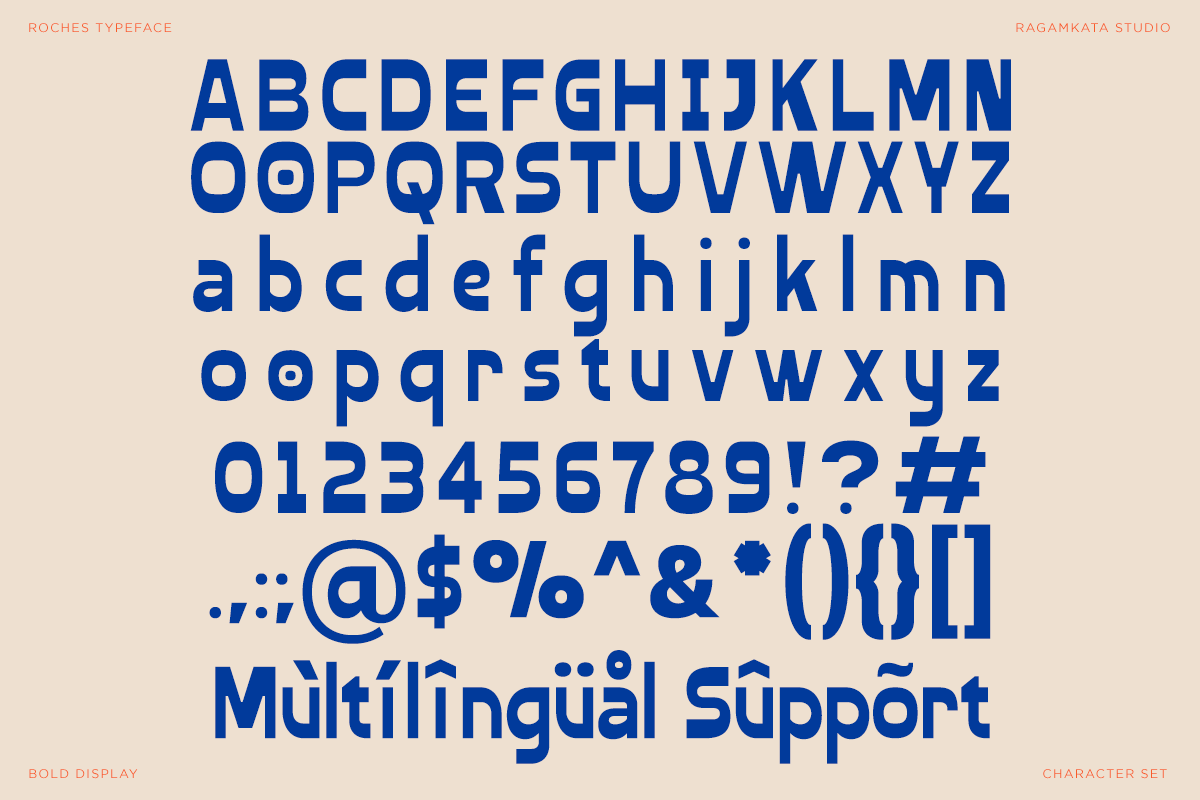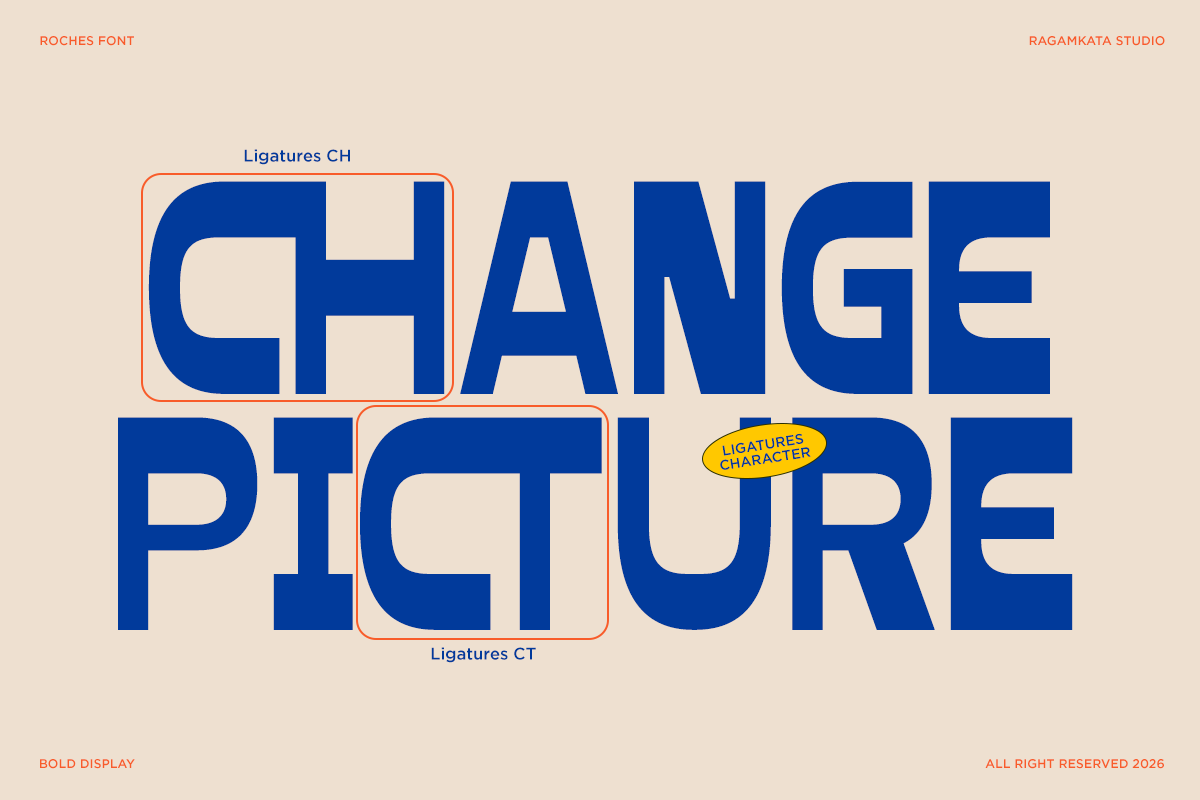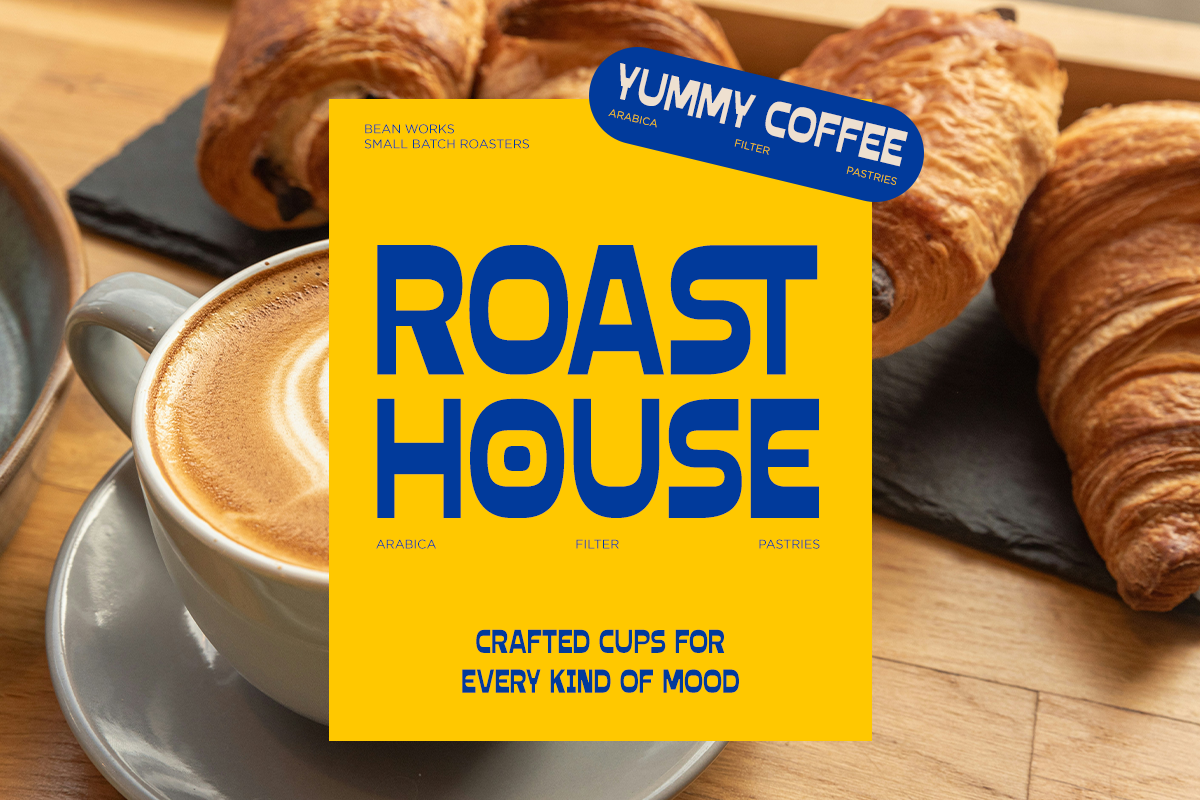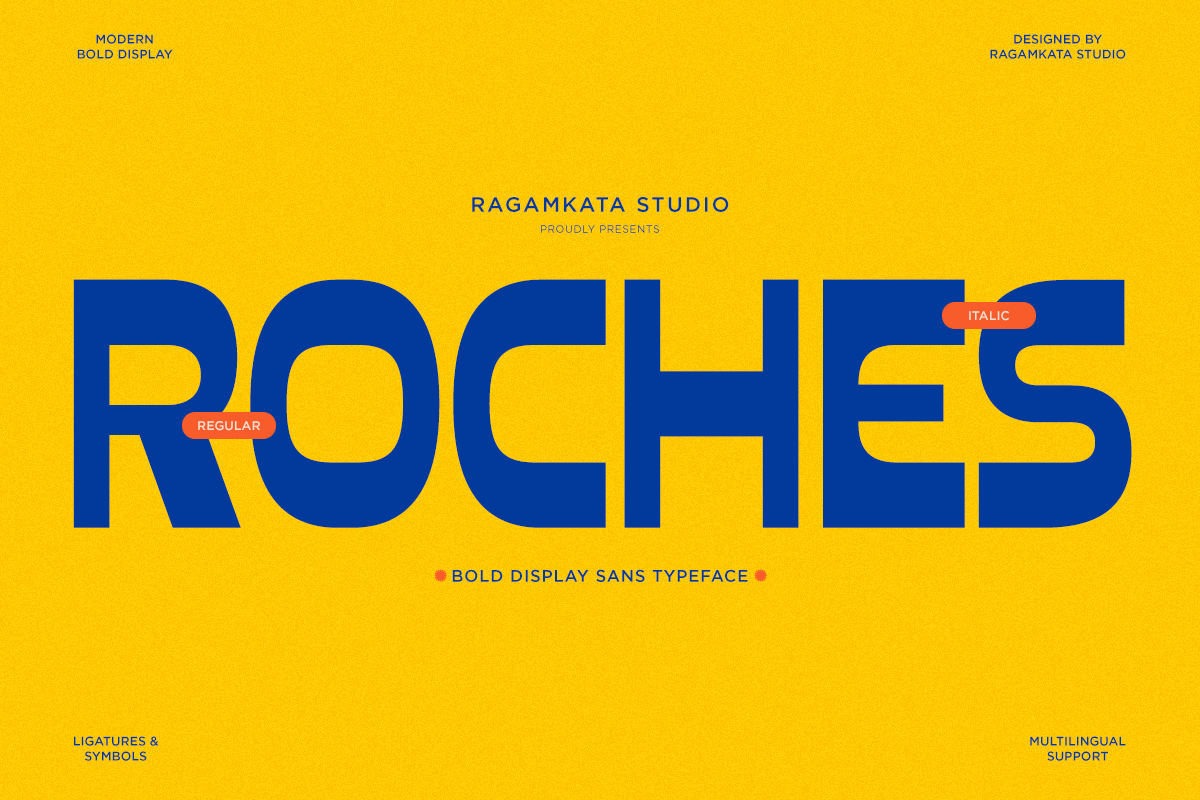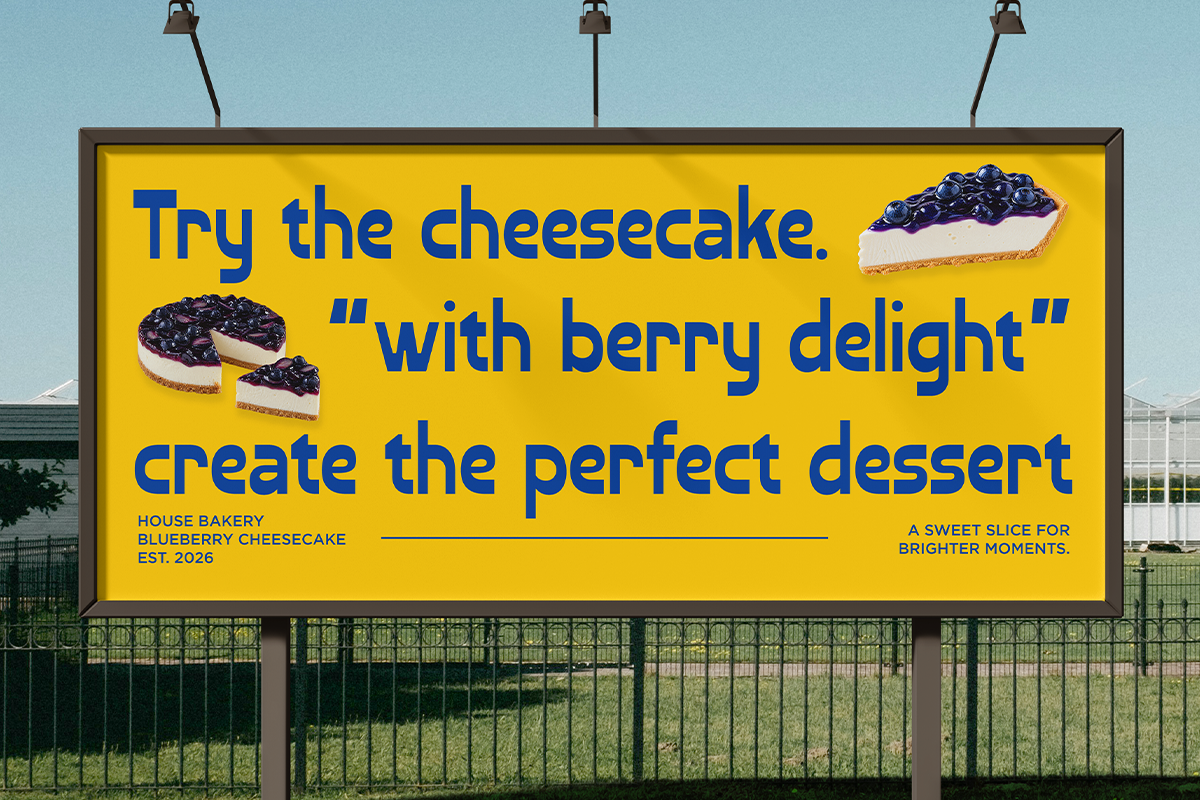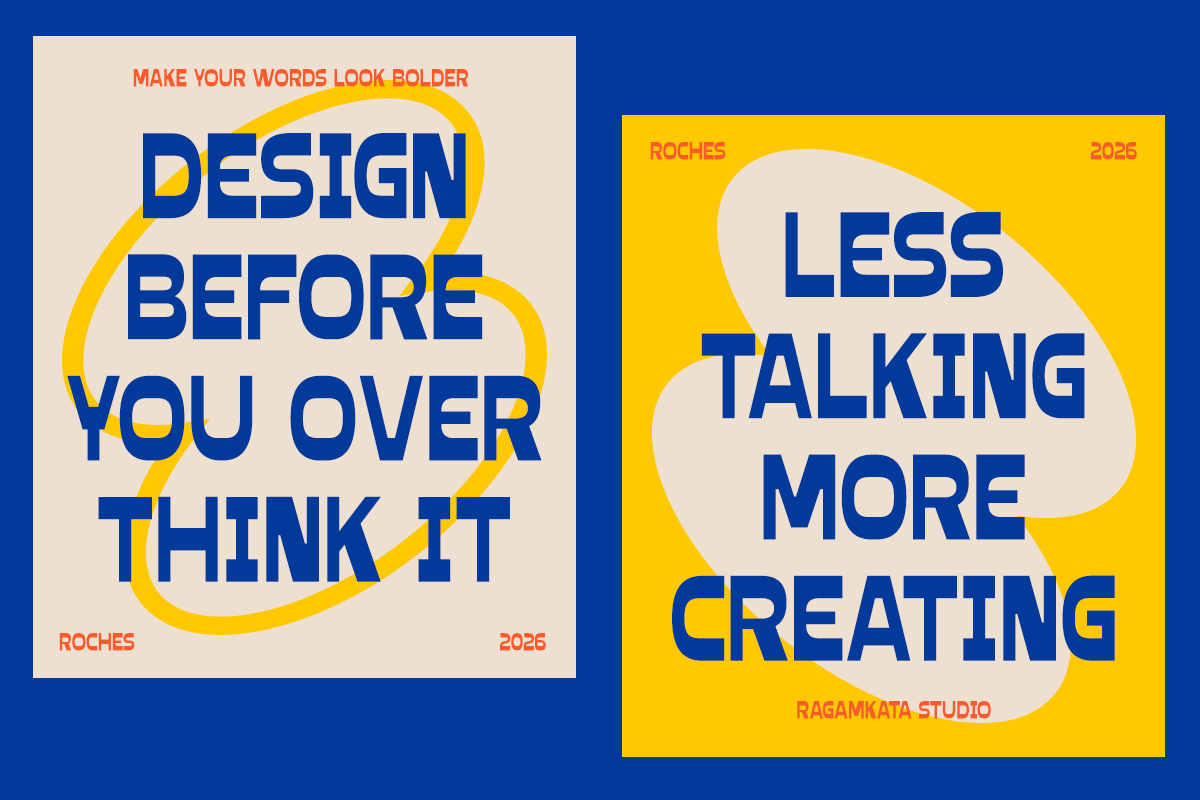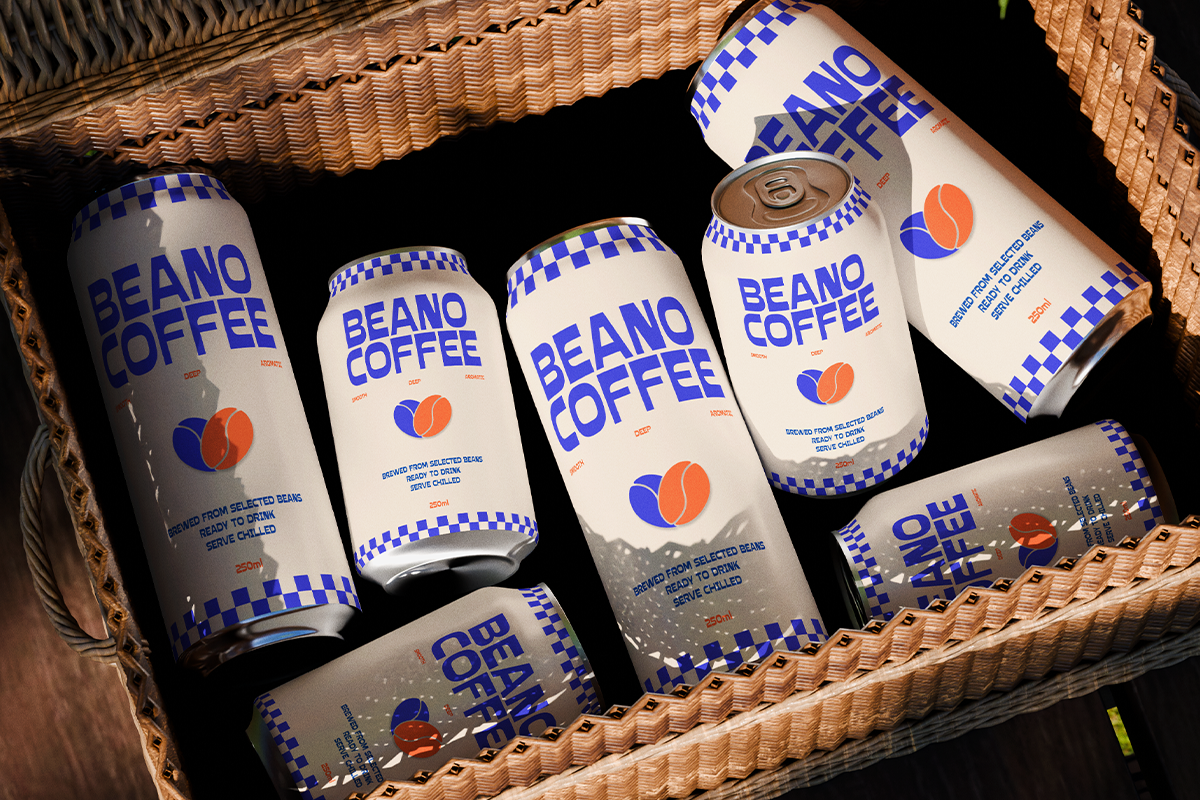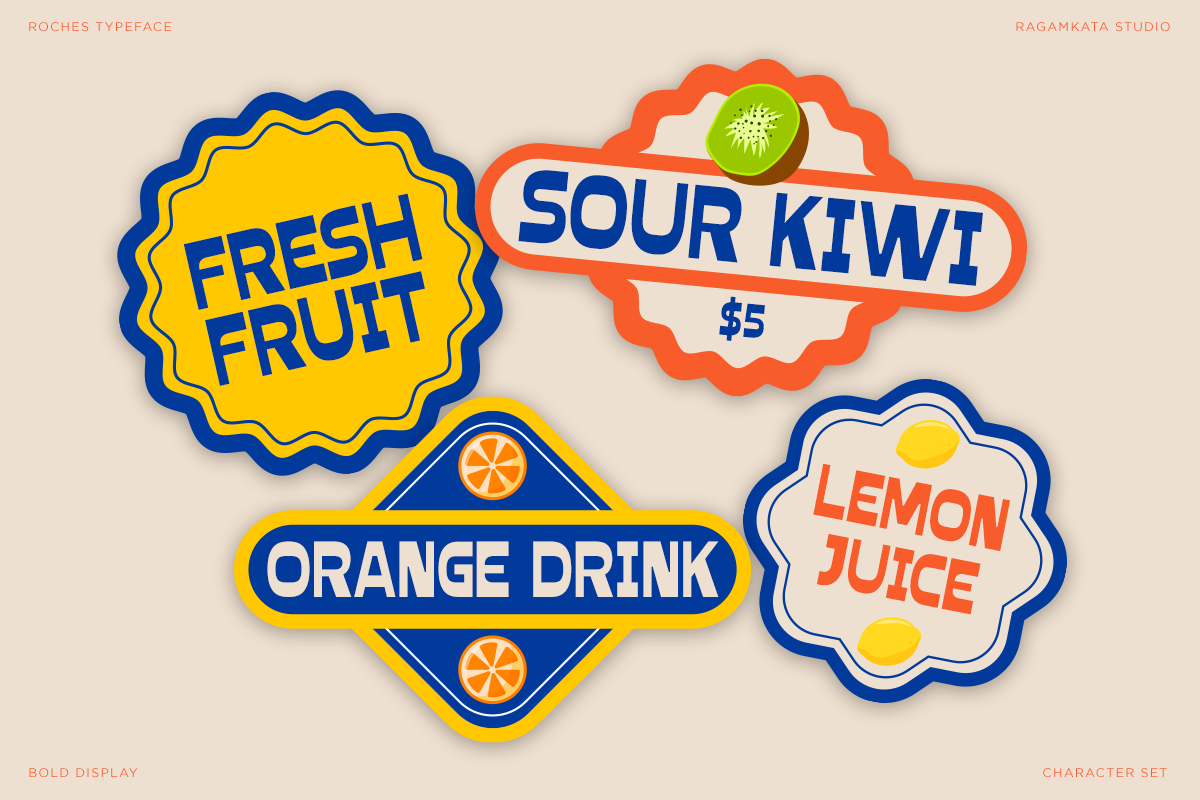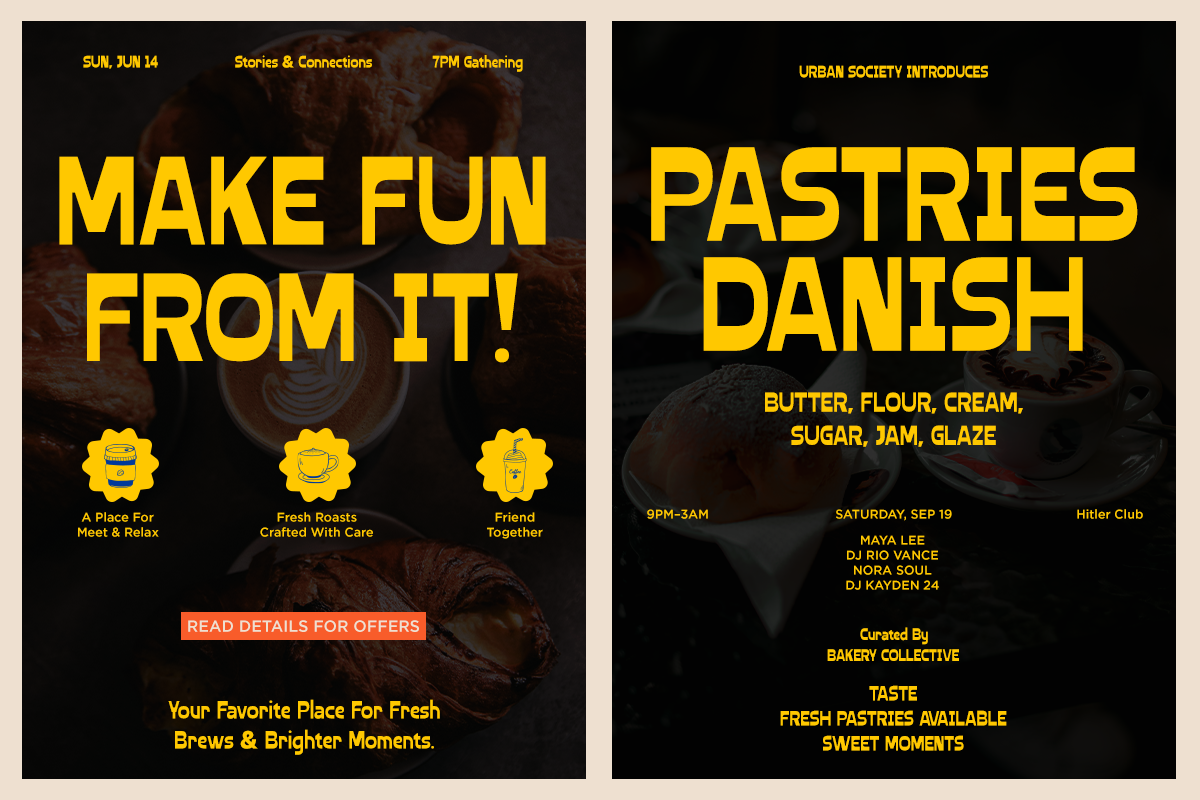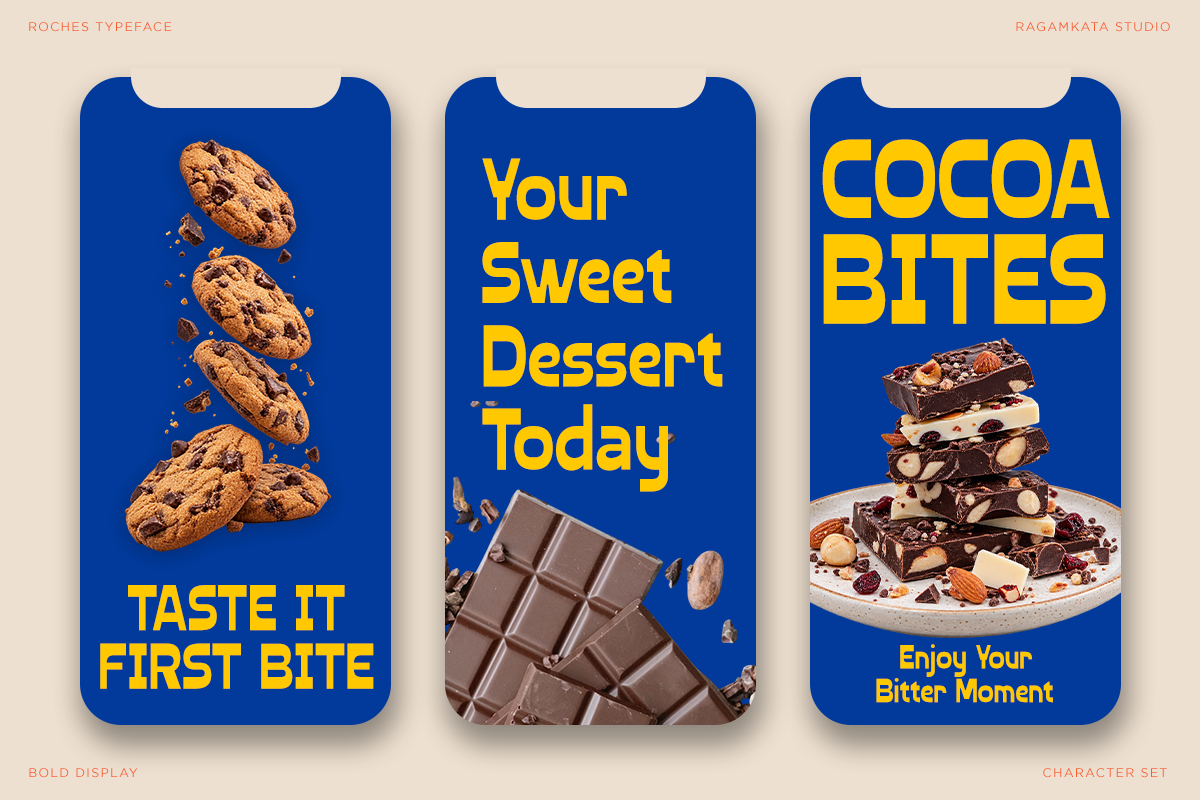
Roches - Bold Food Branding Font
Roches is a bold and playful display font designed to bring a strong, energetic, and memorable personality to your creative projects. Its distinctive letterforms combine a retro-inspired character with a contemporary visual style, making it perfect for designs that need to stand out and communicate with confidence.
With its bold shapes and highly expressive appearance, Roches works especially well for coffee shop branding, bakery identities, food packaging, beverage labels, restaurant menus, posters, advertising, product packaging, and social media graphics. The font is designed to remain impactful across headlines, promotional messages, logos, and eye-catching display compositions.
Whether you're creating a vibrant café identity, a fun dessert campaign, a modern food brand, or a playful packaging concept, Roches adds a distinctive visual voice to your designs. Its versatile display character makes it an excellent choice for designers looking for bold typography with a fun, retro, and contemporary feel.
Regular and Italic
Stylistic Ligatures
Number, Symbol, and Punctuation